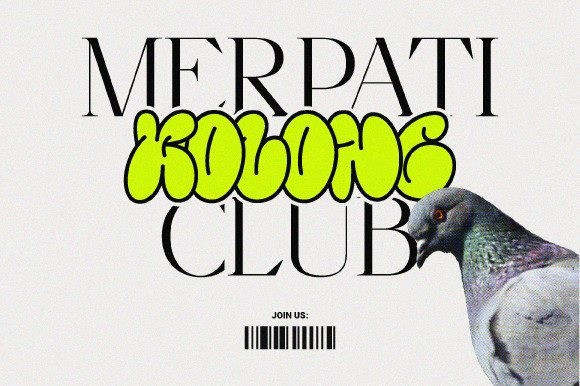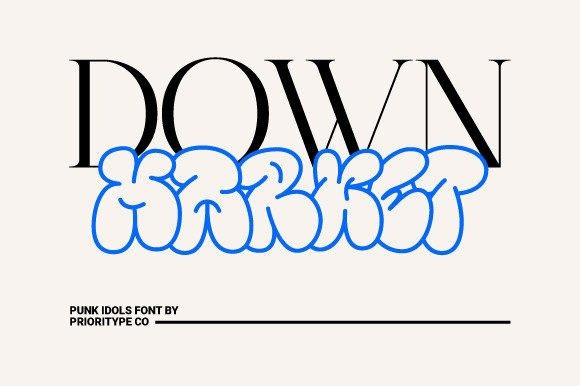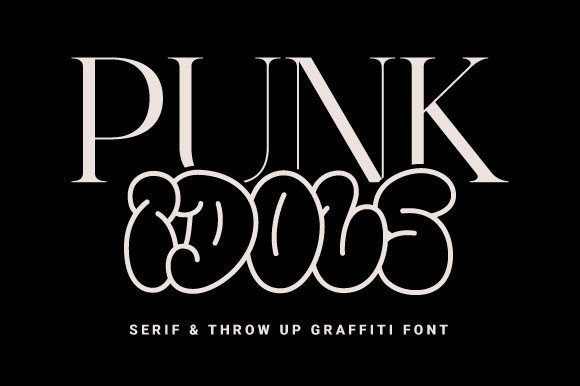
Punk Idols Font
Punk Idols Font is a combined serif and throw-up graffiti (hand-drawn) font packaged in one font. If you use it you are very flexible in exploring designs for any project such as posters, logos, merchandise and even branding.